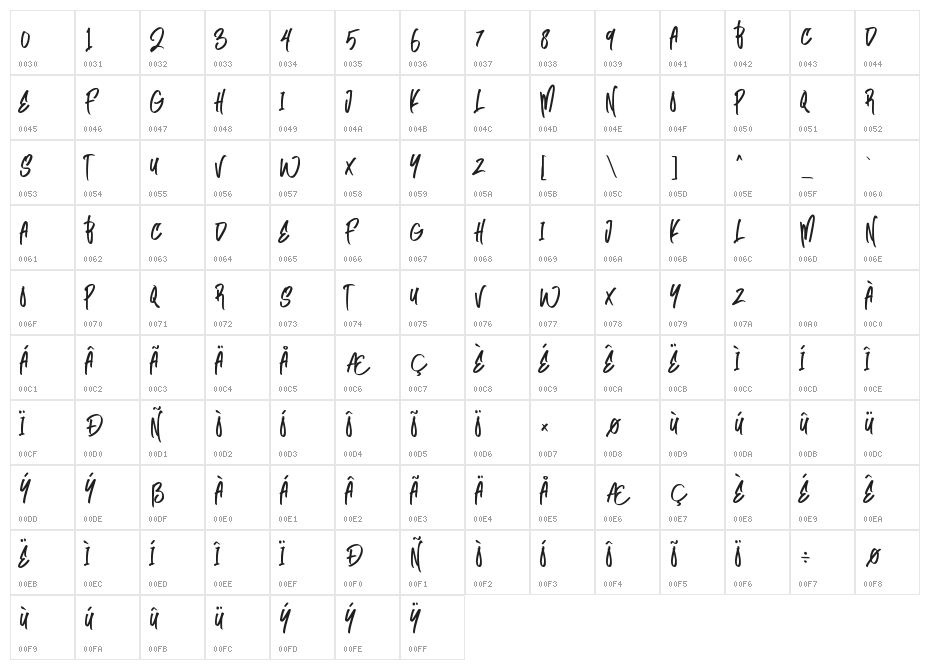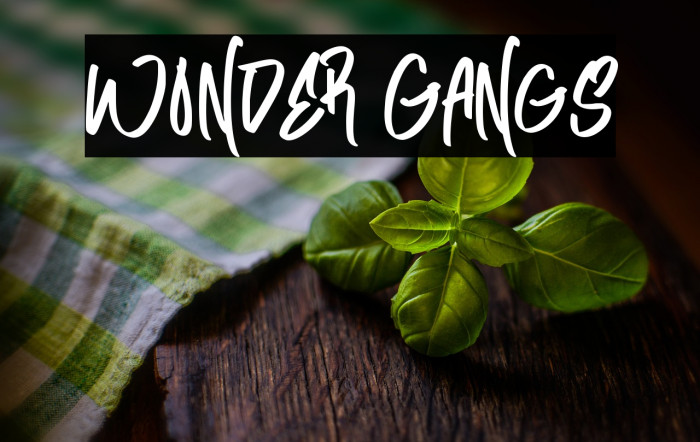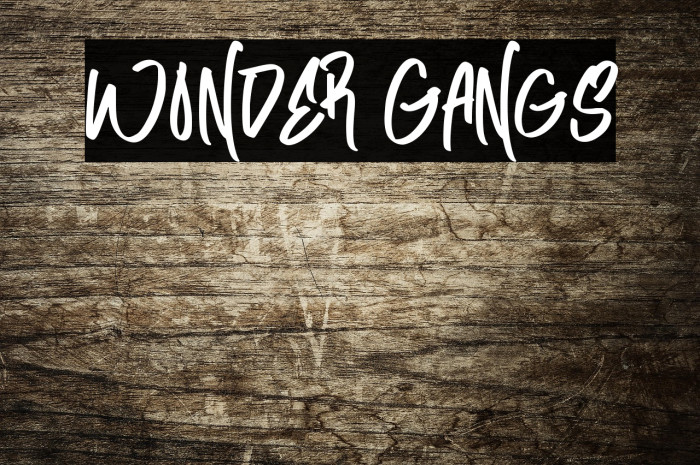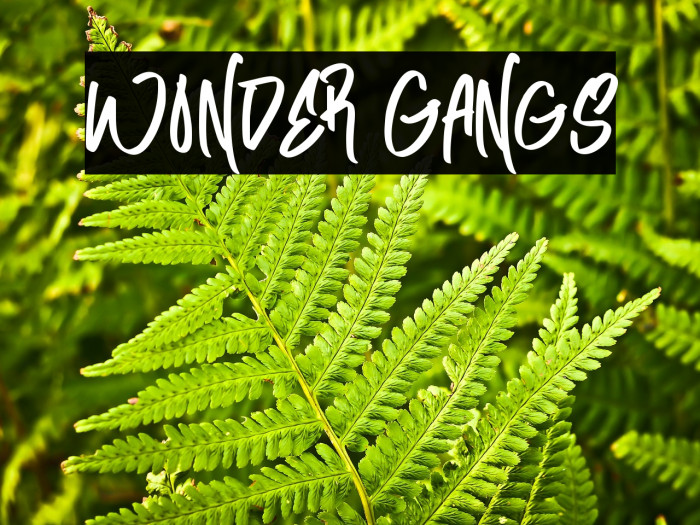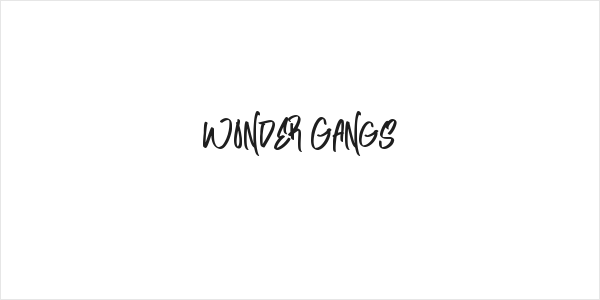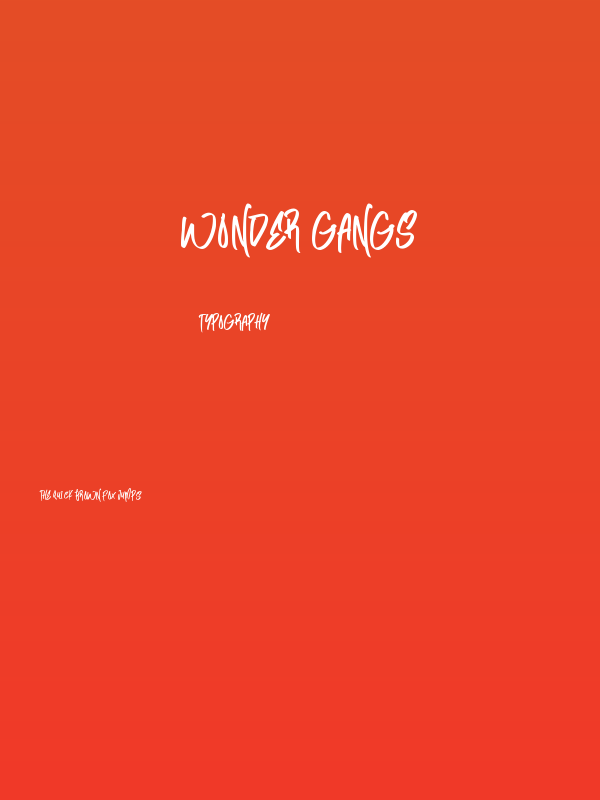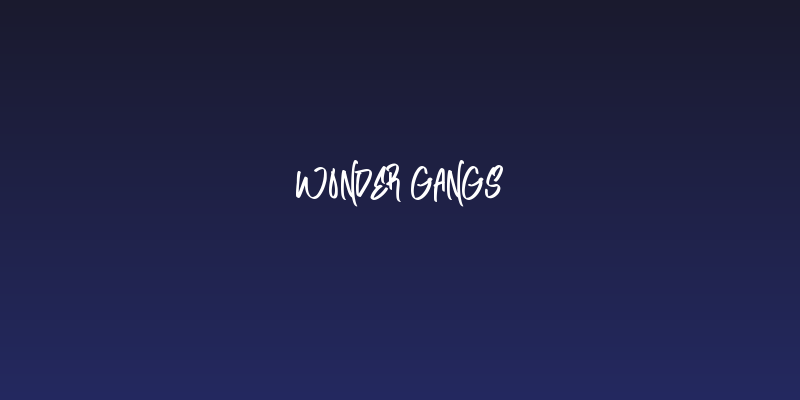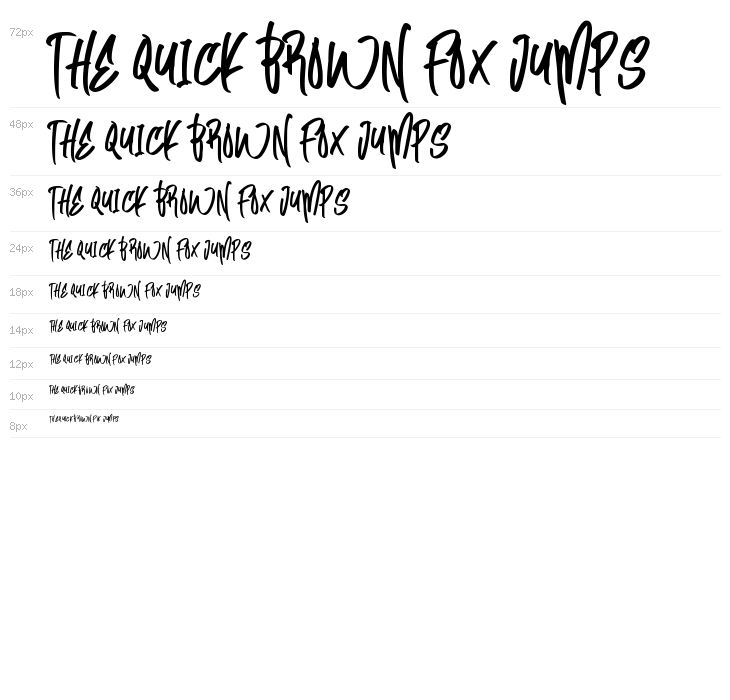
Wonder Gangs Font
Wonder Gangs Description
This font exudes a bold and energetic vibe, characterized by its dynamic brushstroke style. The letters are crafted with a sense of movement and flair, creating a lively and expressive appearance. The uppercase and lowercase letters maintain a consistent style, with a slight slant that adds to the font's overall dynamism. The numbers and special characters are equally expressive, ensuring a cohesive look across all text elements. This font is perfect for projects that require a touch of personality and creativity.
| Proposed Projects | Ideal for branding, posters, album covers, and creative advertising campaigns. |